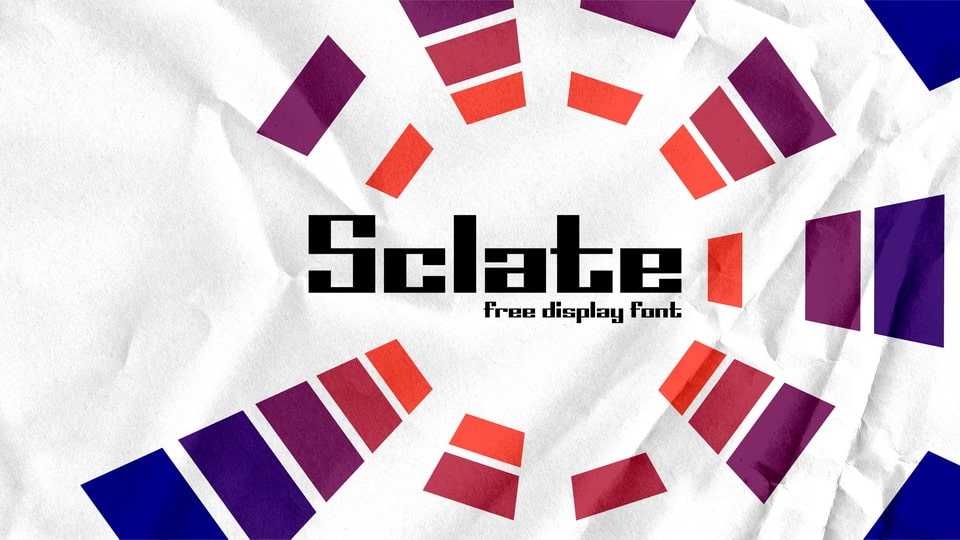
Download Sclate font, a high-contrast typeface that redefines the traditional square shape with a sophisticated and modern twist. Sclate font combines the boldness of sharp edges with contrast shapes, creating a striking visual impact that stands out with geometric precision.